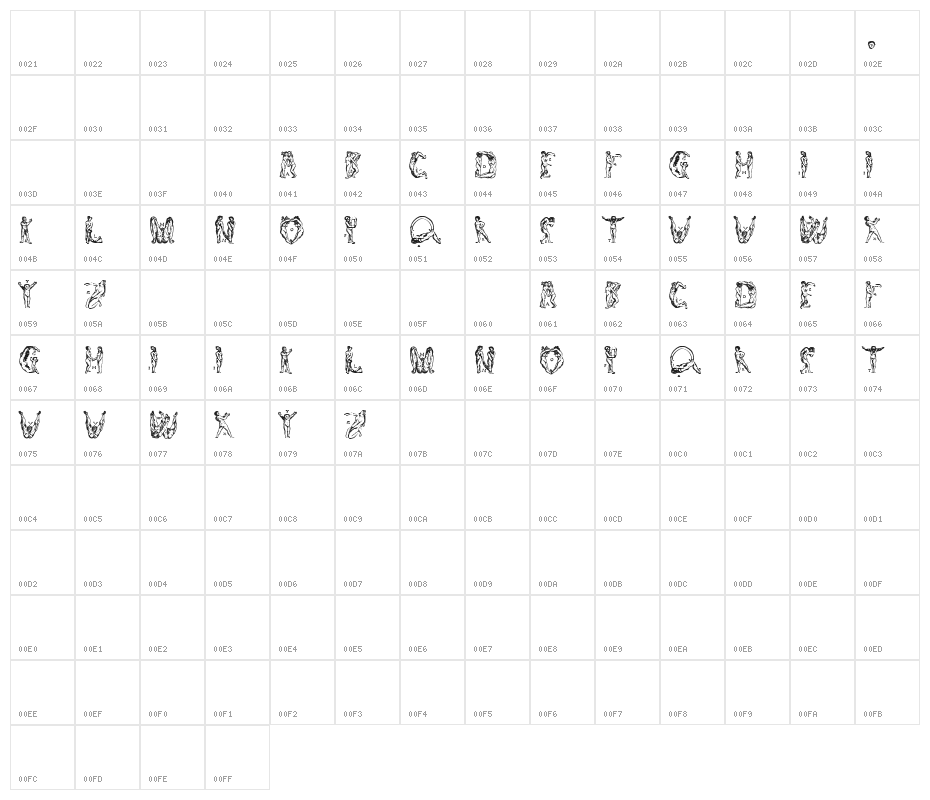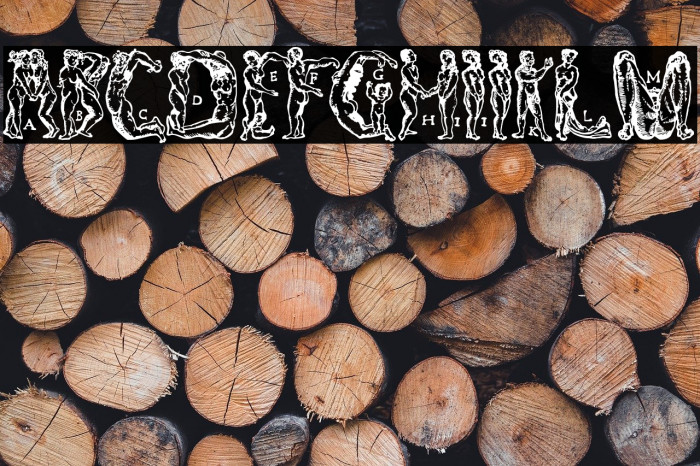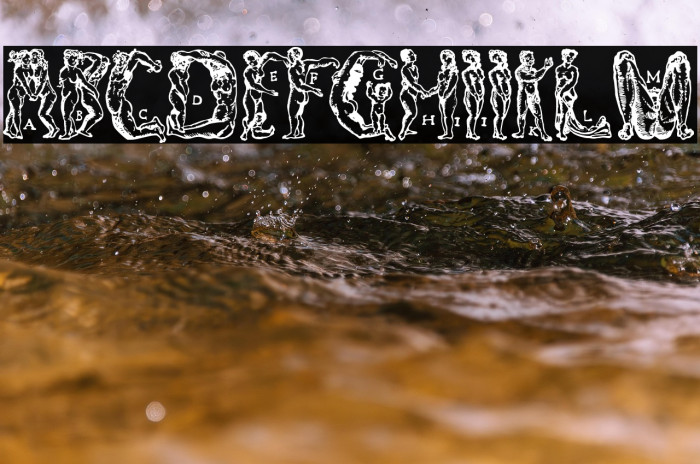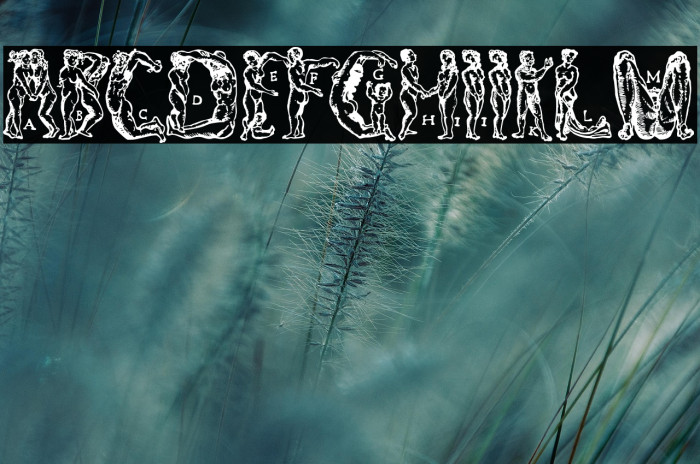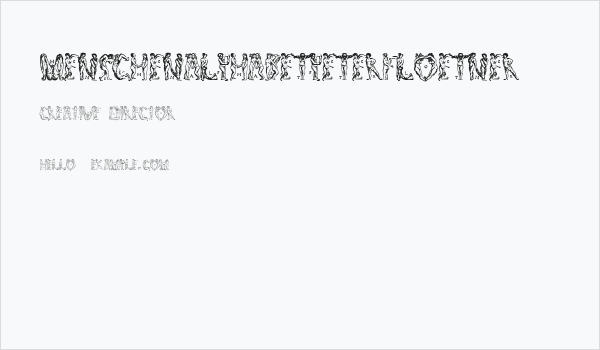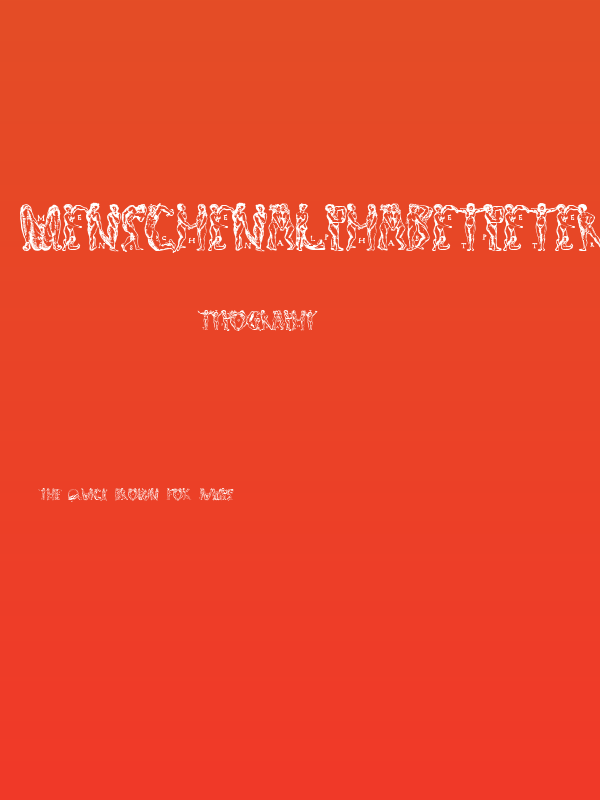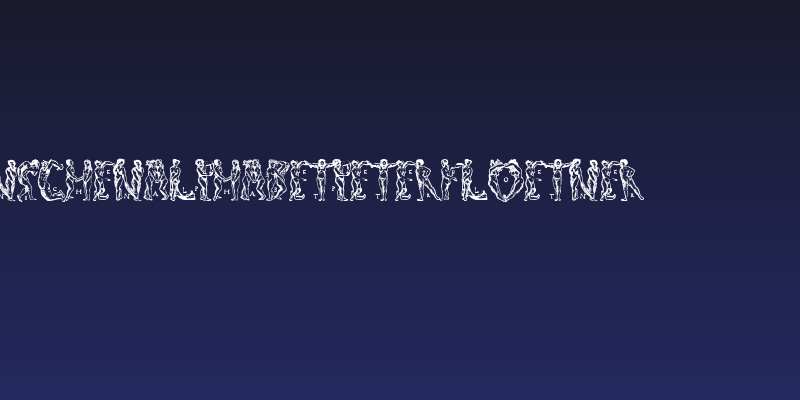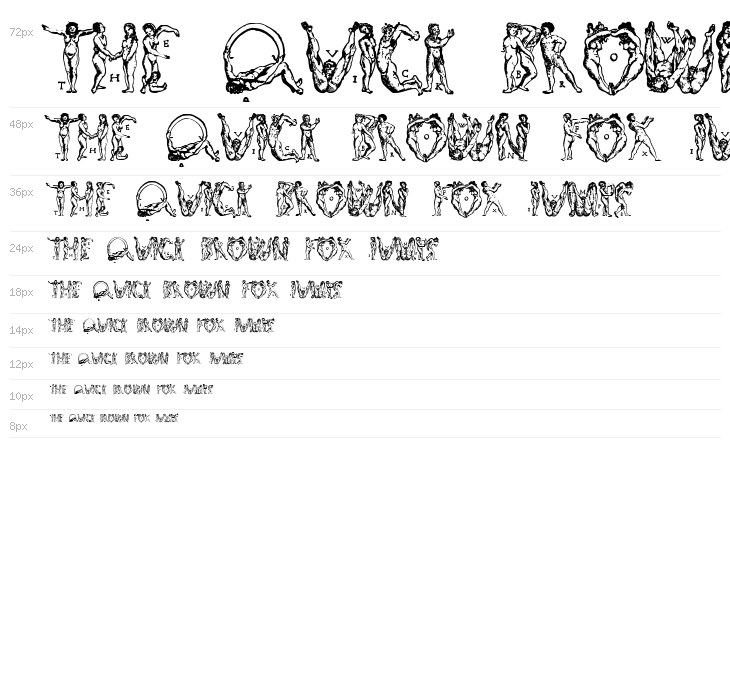
MenschenalphabetPeterFloetner1534 Font
MenschenalphabetPeterFloetner1534 Description
This unique and artistic font is composed of human figures creatively arranged to form each letter and character. The design is intricate, with each figure meticulously posed to represent the shape of the alphabet. The style is highly decorative and imaginative, capturing a sense of playfulness and creativity. The figures are detailed, showcasing a variety of poses and interactions, which adds a dynamic and lively feel to the font. This font is not only a typographic element but also a piece of art, reflecting a historical and artistic perspective. The overall appearance is both whimsical and sophisticated, making it stand out as a conversation piece.
| Use Case | Logos, Artistic displays, Posters |
| Proposed Projects | Ideal for artistic projects, historical exhibitions, creative posters, and unique branding materials. |